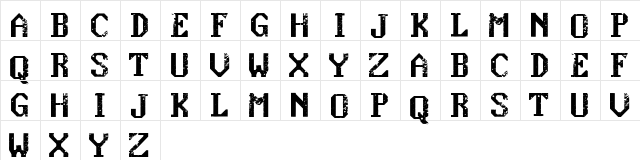
konquer Regular
| Foundry | chi media fonts |
| Designer | chris vile |
Design Context for konquer Typeface
konquer is a composed and adaptable typeface that performs quietly and consistently across a wide range of design contexts.